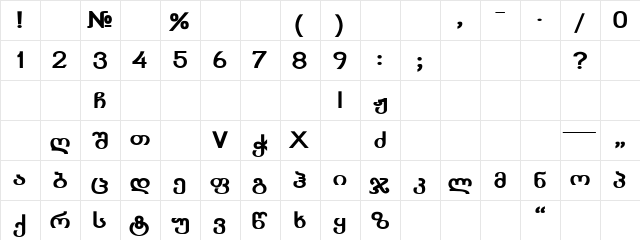
GEO-Kolkhety bold Regular
Design Context for GEO-Kolkhety bold Typeface
GEO-Kolkhety bold is a composed and adaptable typeface that performs quietly and consistently across a wide range of design contexts. The heavy weight commands attention and anchors typographic hierarchies.
Pro Tip: Use GEO-Kolkhety bold in both headline and body roles to test its range before committing to a single application.